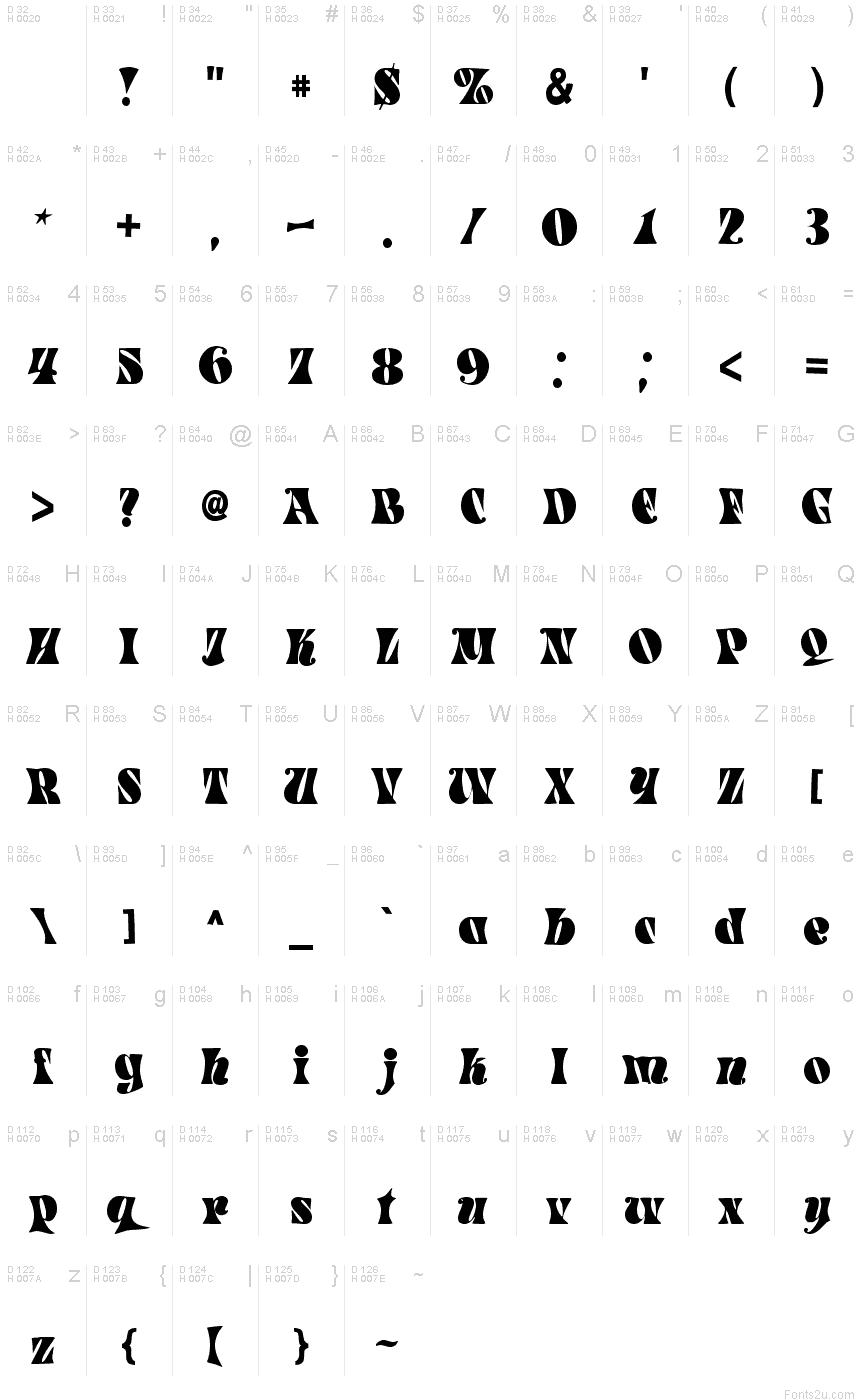
Spacearella
Spacearella by B.O. Nelson is a free groovy display font with a strong 1970s lounge feel. The letters are big, soft, and slightly melting, with dramatic droplet-like inner cuts that give the font a liquid, space-age rhythm instead of a straight retro revival.
It fits naturally on poster headlines, record-inspired packaging, party flyers, cover lines, and title cards where a short phrase can carry the mood. As a free font, it also makes sense for logos, monograms, and drop caps, because those swollen curves and bright cutout shapes do a lot of work before you add anything else.